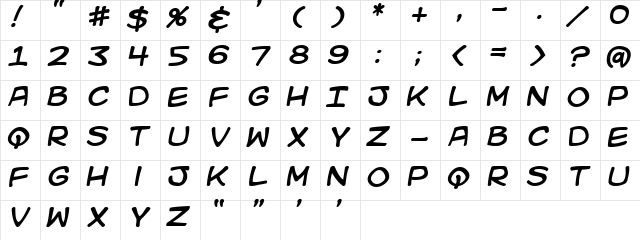
Kid Kosmic Italic
Design Context for Kid Kosmic Typeface
Kid Kosmic is a composed and adaptable typeface that performs quietly and consistently across a wide range of design contexts. The dynamic lean of this cut emphasises speed and emphasis in any layout.
Pro Tip: Try Kid Kosmic for annotation and caption copy alongside an upright companion — the contrast in angle creates a dynamic but ordered typographic system.